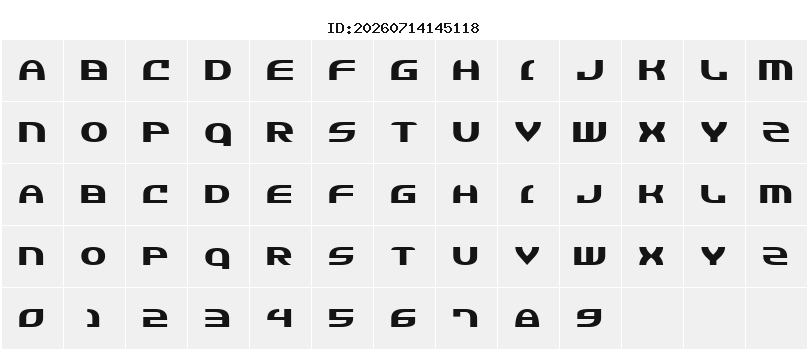
Jannisaries Expanded Preview
• Font Name: Jannisaries Expanded
• Font Style: Expanded
• Font ID: Jannisaries Expanded
• Full Font Name: Jannisaries Expanded
• PostScript Name: JannisariesExpanded
About Jannisaries Expanded.ttf
Jannisaries Expanded.ttf is a modern, elegant sans-serif font designed for ultimate readability and visual harmony. Perfect for branding, headlines, web design, and print materials.